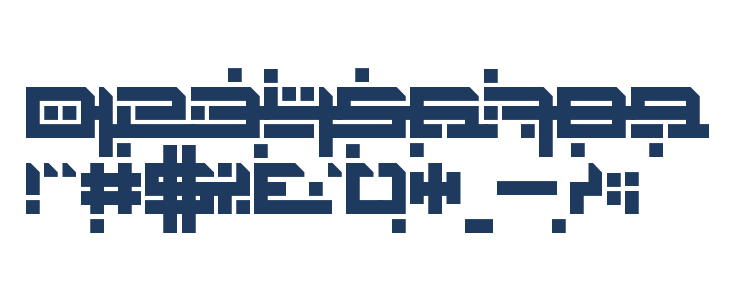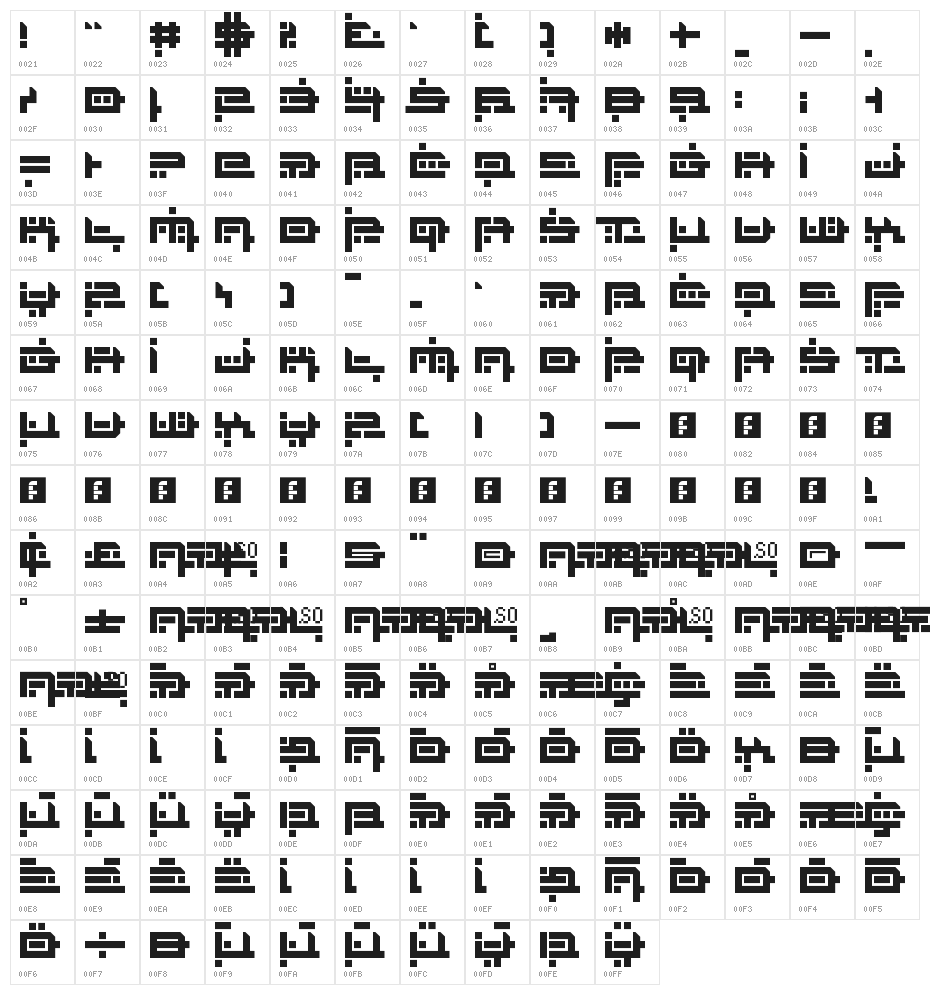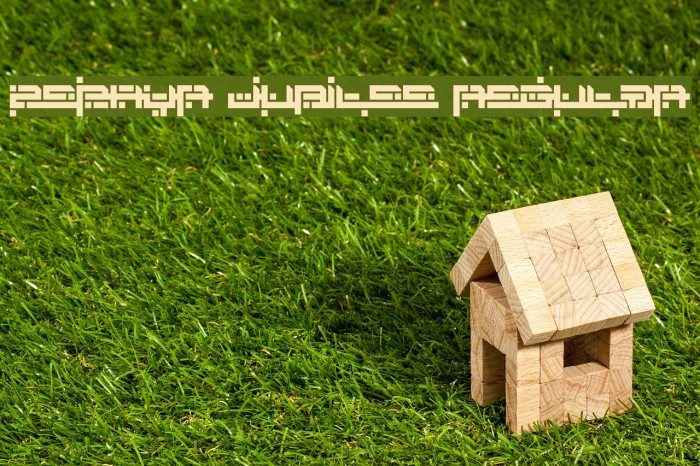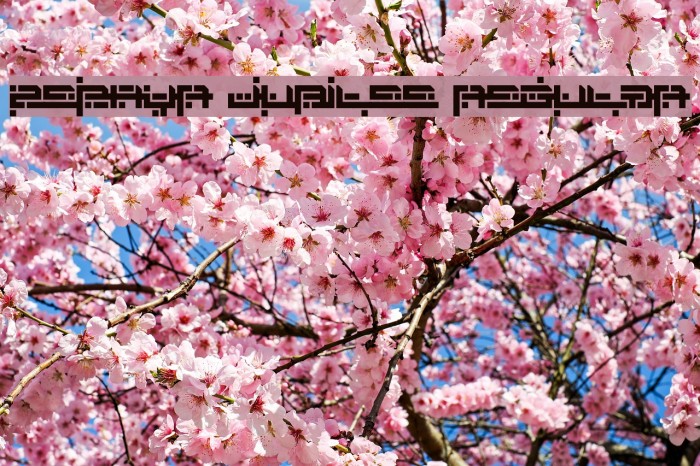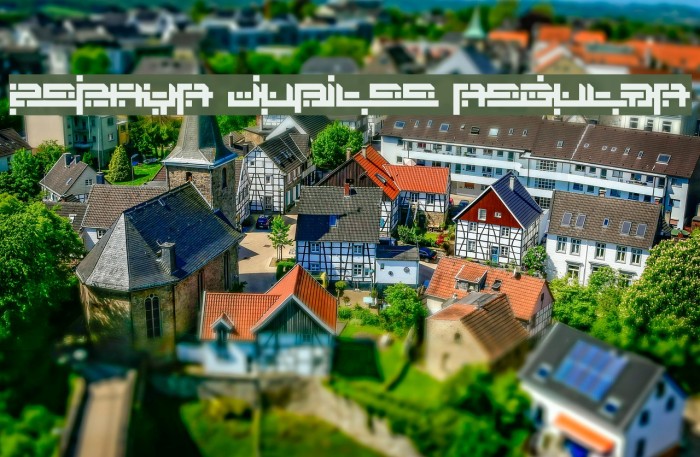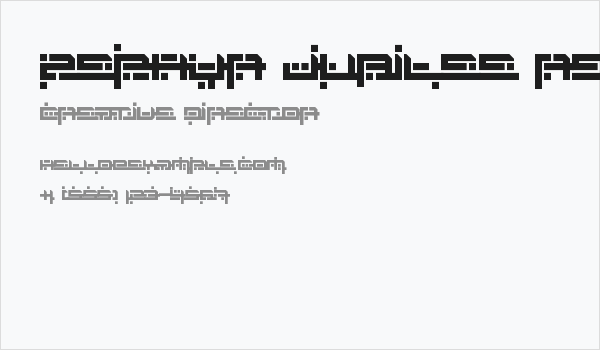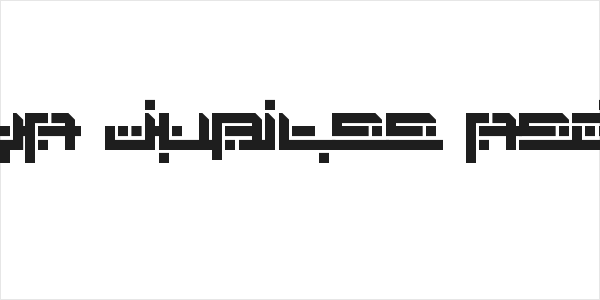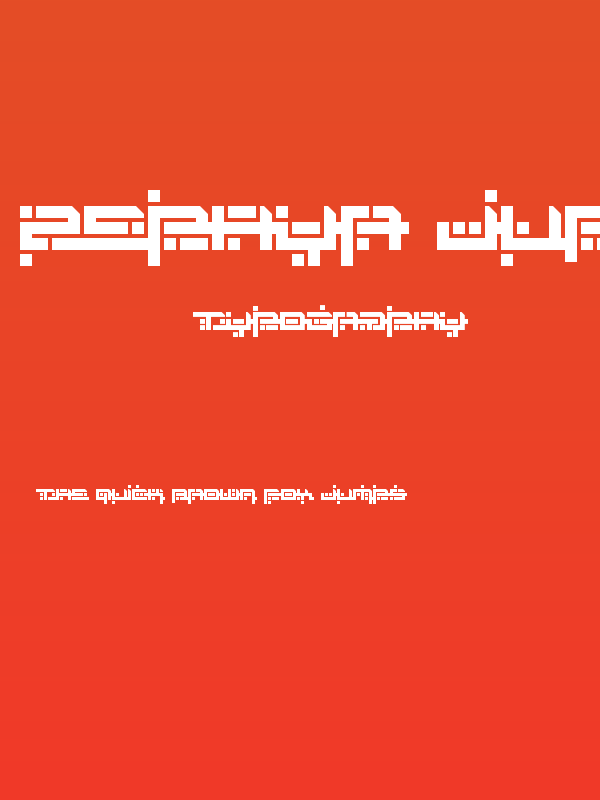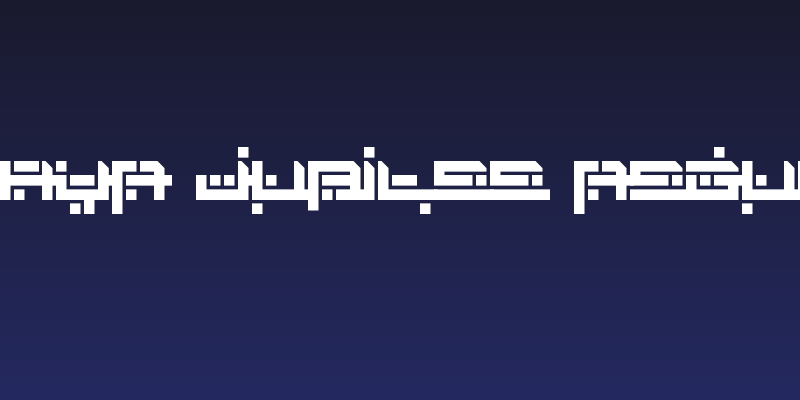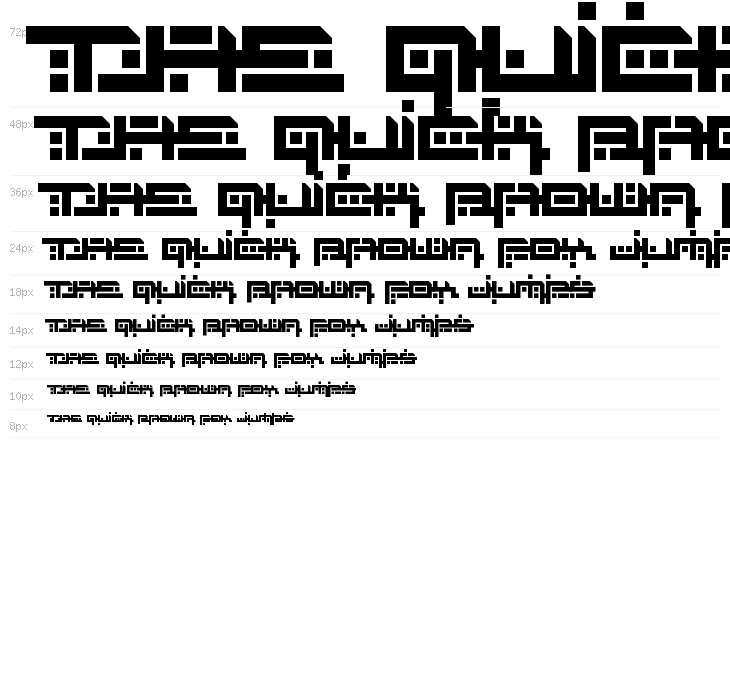
Zephyr Jubilee Regular Font
Zephyr Jubilee Regular Description
This font features a highly geometric and abstract design, characterized by its blocky and pixelated appearance. Each character is constructed using a series of straight lines and right angles, creating a futuristic and digital aesthetic. The font's unique style is reminiscent of early computer graphics or digital displays, with a strong emphasis on symmetry and uniformity. The characters are tightly spaced, contributing to a compact and cohesive look. This font's bold and striking appearance makes it ideal for projects that require a modern and tech-inspired touch.
| Use Case | Logos, Headlines, Digital Art |
| Proposed Projects | Ideal for tech-themed designs, video game graphics, digital art projects, and futuristic branding. |